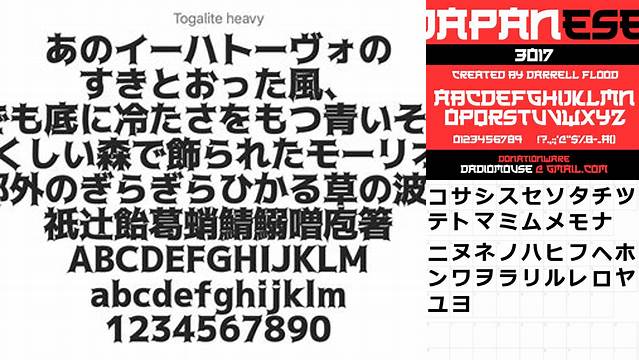
Japanese Bold Font Generator: Free TTF Downloads
Hey guys! Ever wanted to add that extra oomph to your designs with a bold Japanese font? You're in the right place! We're diving deep into the world of Japanese bold fonts, exploring generators, and finding those sweet, sweet free TTF downloads. Let’s get started and make your projects pop!
What is a Japanese Bold Font?
So, what exactly is a Japanese bold font? Simply put, it's a typeface designed to represent Japanese characters (Kanji, Hiragana, and Katakana) with a thicker, heavier stroke than regular fonts. This added weight gives the text a stronger visual impact, making it ideal for headlines, posters, branding, and any situation where you need to grab attention. Think of it like the difference between a whisper and a shout – the bold font is definitely shouting (in a good way!).
These fonts often come in various styles, mirroring the diversity of Japanese calligraphy and typography. You might find bold versions of Mincho (serif), Gothic (sans-serif), or even brush-stroke style fonts. The key is that extra boldness, making each character stand out. Using a Japanese bold font can instantly give your work an authentic and powerful Japanese aesthetic. Imagine a movie poster or a video game title – that bold font can make all the difference!
Moreover, the cultural significance of Japanese bold fonts is noteworthy. Boldness in typography is often associated with strength, authority, and importance, and using it correctly can add layers of meaning to your designs. Choosing the right font will help you capture the attention of your audience. Let’s get into the specifics of finding and using these fantastic fonts.
Why Use a Bold Font for Japanese Text?
Using a bold font for Japanese text can significantly enhance its visibility and impact, especially in designs where you want to draw immediate attention. Think about advertisements, website headers, or even subtitles in videos; a bold font ensures the text stands out against the background and is easily readable. In essence, a bold font amplifies the message, making it more likely to be noticed and remembered.
Beyond mere visibility, boldness also conveys a sense of strength and importance. In Japanese culture, visual weight often correlates with significance. For instance, bold fonts are frequently used in traditional signage and important announcements, signaling the gravity of the information being presented. By incorporating a bold font into your design, you imbue it with a sense of authority and reliability. This can be particularly useful in branding materials or when aiming to project a sense of confidence.
Furthermore, a well-chosen bold font can add a unique aesthetic appeal to your Japanese text. The increased thickness of the strokes can create a visually striking effect, giving the characters a more pronounced and dynamic appearance. When used creatively, this can elevate your design from ordinary to exceptional, capturing the viewer's attention and leaving a lasting impression. So next time you're working with Japanese text, consider the power of boldness—it might just be the element that takes your design to the next level.
One of the best places to start your search is through online font repositories like Font Squirrel, Google Fonts, and DaFont. These sites often have a dedicated section for Japanese fonts, and you can easily filter the results to show only bold typefaces. Pay close attention to the licensing terms associated with each font, as some may have restrictions on commercial use. Always ensure that you are complying with the terms to avoid any legal issues down the road.
Another great way to discover free Japanese bold fonts is by exploring community forums and design blogs. Often, designers and typographers will share their creations or recommend fonts that they have found useful. These platforms can provide insider tips and hidden gems that you might not find through traditional search methods. Keep an eye out for promotional offers as well; some font foundries occasionally offer free downloads of premium fonts for a limited time. By diligently exploring these avenues, you can amass a diverse collection of free Japanese bold fonts to enhance your design projects.
Japanese Bold TTF Font Download
When it comes to Japanese bold TTF font download, understanding what TTF is and why it matters can save you a lot of headaches. TTF, or TrueType Font, is a common font format used on both Windows and Mac operating systems. It's widely supported, making it a reliable choice for most design and word-processing applications. Downloading a font in TTF format ensures that it will likely work seamlessly with your software.
Pay attention to the context in which you're using the font. A font that is appropriate in one setting might be inappropriate in another. For example, a playful Maru Gothic font might be suitable for a children's book but not for a business presentation. If you're unsure about the cultural appropriateness of a font, it's always best to consult with a native Japanese speaker or a cultural expert. By using bold Japanese fonts with cultural sensitivity, you can create designs that are both visually appealing and respectful of Japanese culture.